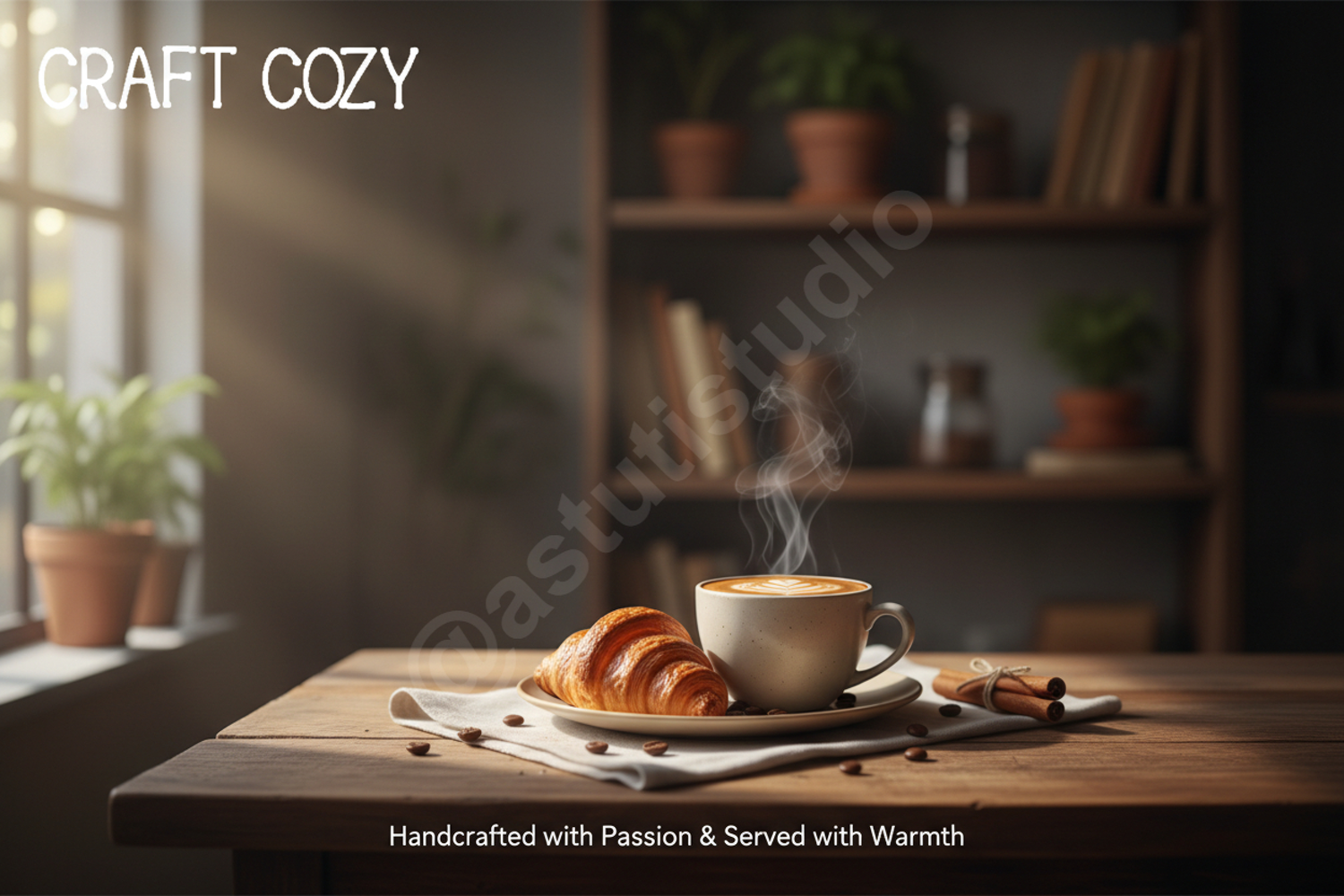
Kapo - Modern Geometric Sans Serif
Kapo
Elevate your design projects with Kapo, a premium geometric sans serif font crafted for modern aesthetics and maximum versatility. Kapo combines clean lines with a bold personality, making it an essential addition to any professional designer's toolkit. Whether you are aiming for a minimalist look or a high-impact display, this font delivers exceptional legibility and sophisticated style.
- Comprehensive character set including uppercase, lowercase, and numerals
- Extensive punctuation and multilingual support
- Branding and Identity: Create memorable logos and cohesive brand systems.
- Editorial Design: Perfect for striking headlines and clean magazine layouts.
- Digital Marketing: Enhance your social media graphics and high-conversion web banners.
- Packaging: Add a sophisticated, modern touch to product labels and retail boxes.
- Corporate Presentations: Maintain a professional and polished aesthetic in every slide.